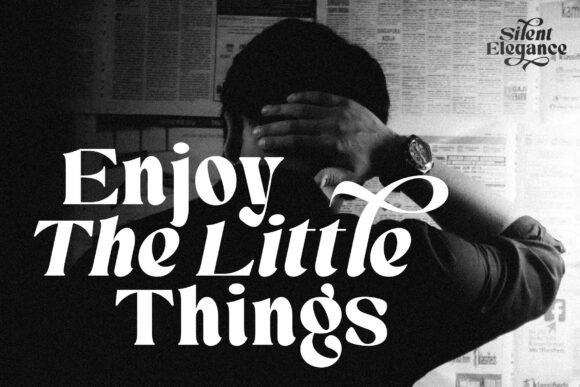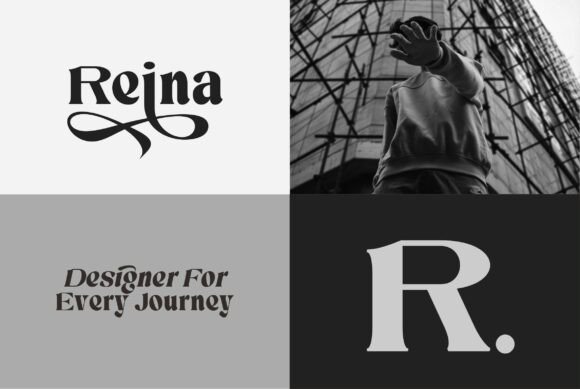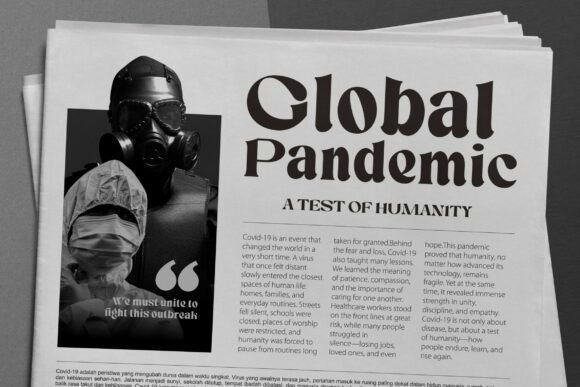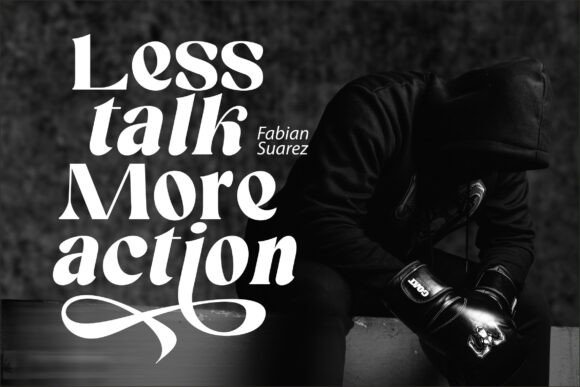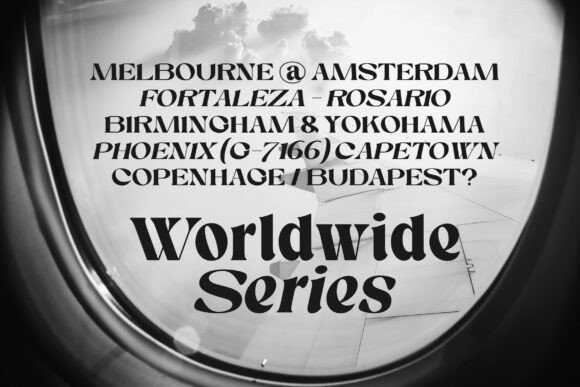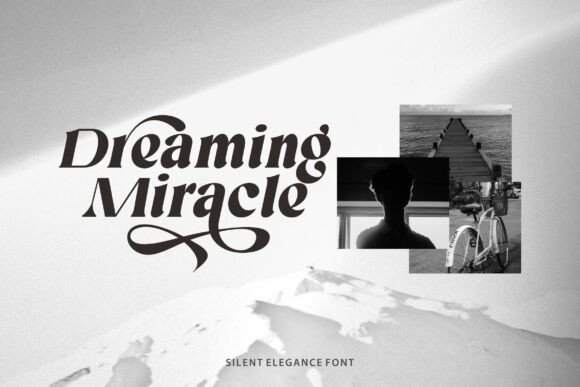
Introduction to Silent Elegance Font
Have you ever found yourself pouring over design inspiration, scrolling through endless pages of typography, and finally stumbling upon that one font that makes your creative project stand out? For designers, discovering the perfect font can be a game-changer. It’s the moment when all the pieces fall into place, and your design comes alive. For many, that perfect font is the Silent Elegance Font – a modern serif typeface that exudes quiet luxury and refinement.
Designed to be versatile, Silent Elegance Font effortlessly blends classic serif structure with soft contemporary touches, resulting in a look that feels timeless yet fresh. Whether you’re working on a logo, branding, or editorial project, this high-quality font is sure to bring a touch of sophistication without feeling overly formal. With its carefully crafted letterforms and balanced proportions, Silent Elegance Font is the ultimate design resource for anyone seeking to elevate their creative project.
Key Features of Silent Elegance Font
- High-quality, elegant font suitable for creative projects, including wedding invitations, greeting cards, and more.
- Designed to be highly legible, with clear and crisp lines, making it perfect for use in a variety of font sizes and resolutions.
- Features a unique, cursive design that adds a touch of sophistication and elegance to any creative project.
Honest Review: Silent Elegance Font
As a designer, I’m always on the lookout for high-quality design resources that can elevate my creative projects. The Silent Elegance Font caught my attention, and I decided to give it a try.
- ✨ The font has a beautiful, elegant design that’s perfect for creating a sophisticated and professional look.
- ⚠️ The font may not be suitable for very small text sizes, as it can become difficult to read.
Overall, I’m impressed with the Silent Elegance Font. It’s a high-quality design resource that’s perfect for designers looking to add a touch of elegance to their creative projects. With its free download and transparent background, it’s a great addition to any design toolkit.
Tips for Getting the Most Out of Silent Elegance Font
To get the most out of Silent Elegance Font, use it on a transparent background to create a clean and elegant design. You can also pair it with other fonts to create a unique and creative project.
Common Use Cases for Silent Elegance Font
The Silent Elegance Font is ideal for use in invitations, greeting cards, and other design projects where a high-quality and elegant font is required. Its transparent background makes it perfect for overlaying on images or other design elements.